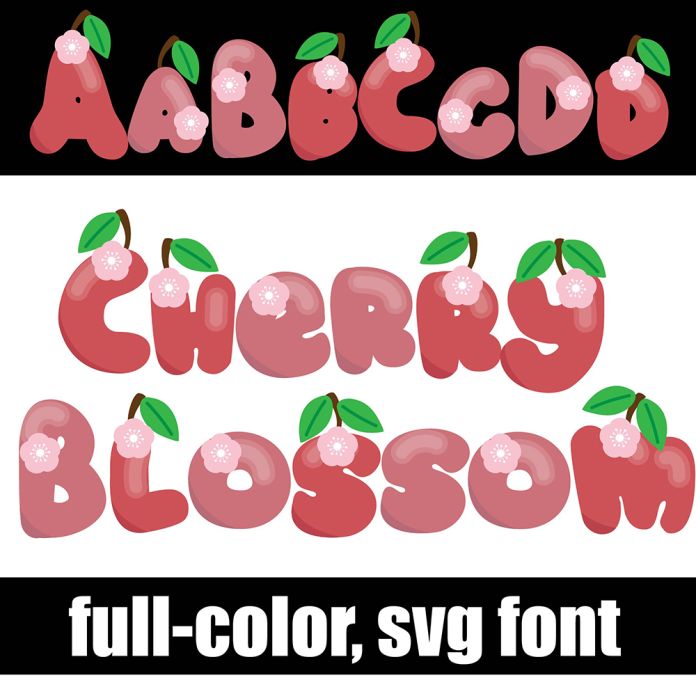
This full-color font features simple, cherry colored font with cherry leaves and blossoms throughout. There is an alt case with an additional color of each letter. This font works best for titles, displays, posters and more. Please note color fonts will show as black in non compatible programs. This font type is compatible with Silhouette Studio.